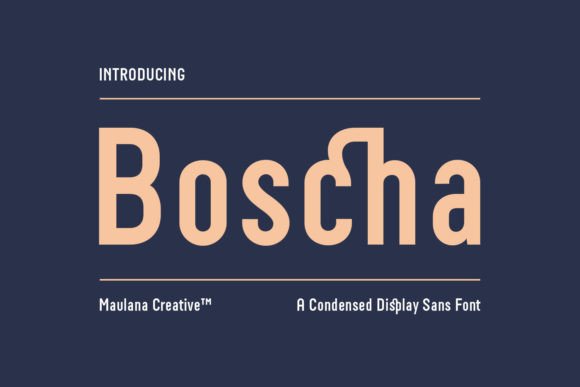
The Designer’s Delight: Exploring the Boscha Font
I still remember the design project that led me to discover the Boscha font. I was working on a branding project for a trendy boutique hotel, and I needed a font that would make their headings and quotes stand out. After hours of scrolling through font libraries, I stumbled upon Boscha, and it was love at first sight! ✨ The condensed sans serif display font was perfect for the job, and I’ve been hooked ever since.
An Honest Review of Boscha Font
What I Love About Boscha
- ✅ **Clean and modern design**: Boscha’s sleek lines and minimalist aesthetic make it perfect for modern designs.
- ✅ **Highly versatile**: This font works beautifully for quotes, headings, logos, branding, merchandise, and websites.
- ✅ **Excellent for display text**: Boscha shines when used for large display text, making it ideal for attention-grabbing headlines.
- ✨ **Unique character**: Boscha’s condensed style gives it a distinctive personality that sets it apart from other sans serif fonts.
While Boscha is an excellent font, it’s not without its quirks. Here are a few things to keep in mind:
- ⚠️ **Limited use for body text**: Due to its condensed style, Boscha may not be the best choice for lengthy body text. It’s best used for headings and display text.
- 🤔 **Some letters may be too condensed**: Certain letters, like “m” and “w”, may appear a bit too narrow, which can affect readability at smaller font sizes.
- Experiment with OpenType features, such as **Stylistic Alternates**, to add some personality to your text.
- Explore the **Glyphs** panel to access additional characters, such as ligatures and stylistic alternates.
The Backstory of Boscha Font
Boscha was designed with the goal of creating a modern, versatile font that would excel in display text. The designer aimed to craft a font that was both clean and distinctive, making it perfect for a wide range of design applications. While the designer’s identity may be unknown, their vision for Boscha has certainly resonated with designers around the world.
| What is the best use for Boscha font? | Boscha is perfect for display text, headings, quotes, logos, branding, merchandise, and websites. |
| Can I use Boscha for body text? | While Boscha can be used for body text, its condensed style may not be the best choice for lengthy text. It’s best used for headings and display text. |